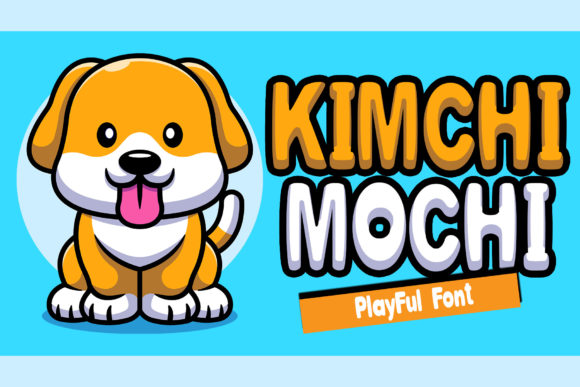
Discover the Captivating World of Kimchi Mochi Font: A Culinary Delight for Your Design Palate
Indulge in the delectable flavors of Kimchi Mochi Font, a gastronomic feast for your creative appetite. This irresistible display font, crafted by the culinary maestros at Home Work Creative Studio, is a harmonious blend of sweet and spicy, just like its namesake Korean dish.
With its tantalizing curves and playful spirit, Kimchi Mochi Font is the perfect ingredient to add a dash of flavor to your design creations. Whether you're crafting eye-catching logos, designing trendy t-shirt graphics, or creating packaging that pops, this font is sure to leave a lasting impression.
Feast Your Eyes on the Exquisite Details:
- Luscious Ligatures: Dive into a world of typographic artistry with Kimchi Mochi Font's carefully crafted ligatures. These elegant connections between letters add a touch of sophistication and charm to your designs, transforming ordinary text into a visual masterpiece.
- Perfectly Paired Kerning: Savor the subtle balance and harmony of Kimchi Mochi Font's meticulously adjusted kerning. Each character dances in perfect unison with its neighbors, ensuring that your designs are visually pleasing and easy on the eyes, creating a reading experience that is both delightful and effortless.
- Enchanting Language Support: Expand your culinary horizons with Kimchi Mochi Font's extensive language support. This font embraces a diverse range of languages, allowing you to craft multilingual designs that resonate with a global audience. Let your creativity roam free, knowing that Kimchi Mochi Font will faithfully translate your messages across borders and cultures.
Indulge in a Typographic Feast with Kimchi Mochi Font:
- Logos That Sizzle: Ignite your brand's identity with Kimchi Mochi Font's captivating logos. Its bold and playful character will make your brand stand out in a crowded marketplace, leaving a lasting impression on your customers' minds. Prepare to savor the sweet taste of success as your logo shines brightly, attracting new customers and propelling your business to new heights.
- T-Shirt Designs That Pop: Unleash your inner fashionista and create t-shirt designs that are sure to turn heads. Kimchi Mochi Font's playful and trendy vibe will make your designs the talk of the town. Imagine your customers strutting their stuff in t-shirts adorned with Kimchi Mochi Font's vibrant and eye-catching characters, becoming walking billboards for your brand.
- Packaging That Enchants: Elevate your packaging designs to new levels of sophistication with Kimchi Mochi Font. Its unique and memorable style will transform your products into irresistible treats that customers simply can't resist. Picture your products adorned with Kimchi Mochi Font's charming characters, captivating customers' attention and driving sales through the roof.